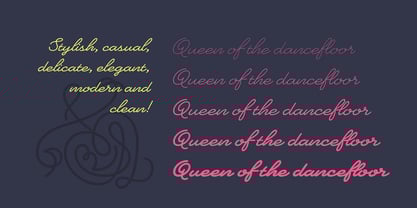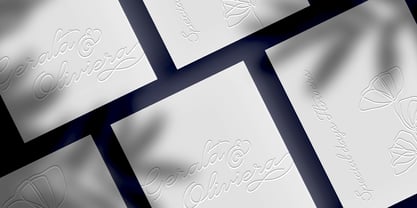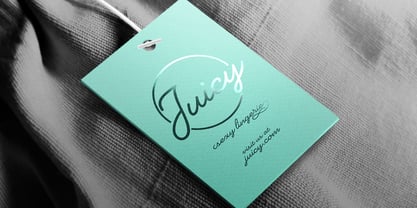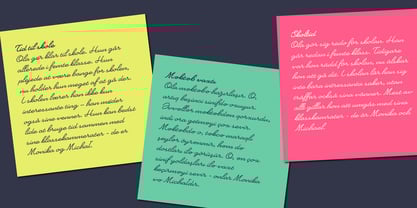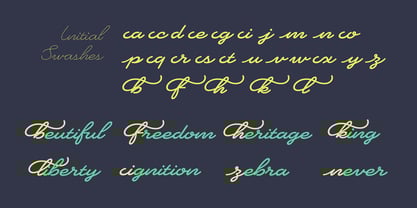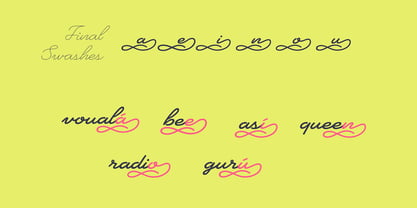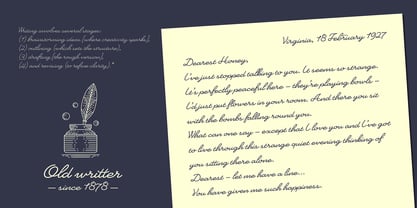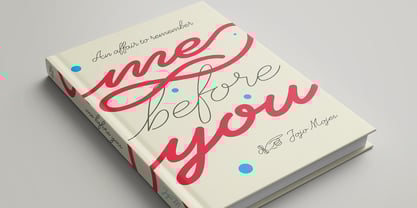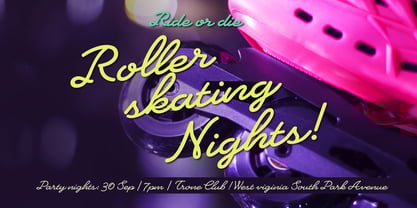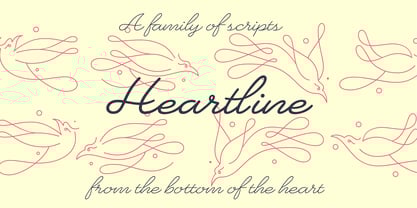
Heartline Script
by Sudtipos
The Heartline Script Font Family was designed by Alejandro Paul and published by Sudtipos. Heartline Script contains 6 styles and family package options. More about this family
A monolinear handwriting-inspired font family designed for expressive display use. Ideal for headlines, short texts, and typographic compositions where personality matters, it shines in contexts where calligraphy has a voice—stationery design, fashion branding, packaging, and beyond.
The true charm of this typeface lies in its flowing swashes and entangled decorative elements, which enrich the core character set with movement and elegance. These flourishes invite creative combinations, adding flair and individuality to every word.
Covering a wide range of Pan-European Latin languages, the family also includes a variable font version, allowing seamless transitions from Extra Light to Bold—perfect for flexible design systems and dynamic layouts.
Designers: Alejandro Paul